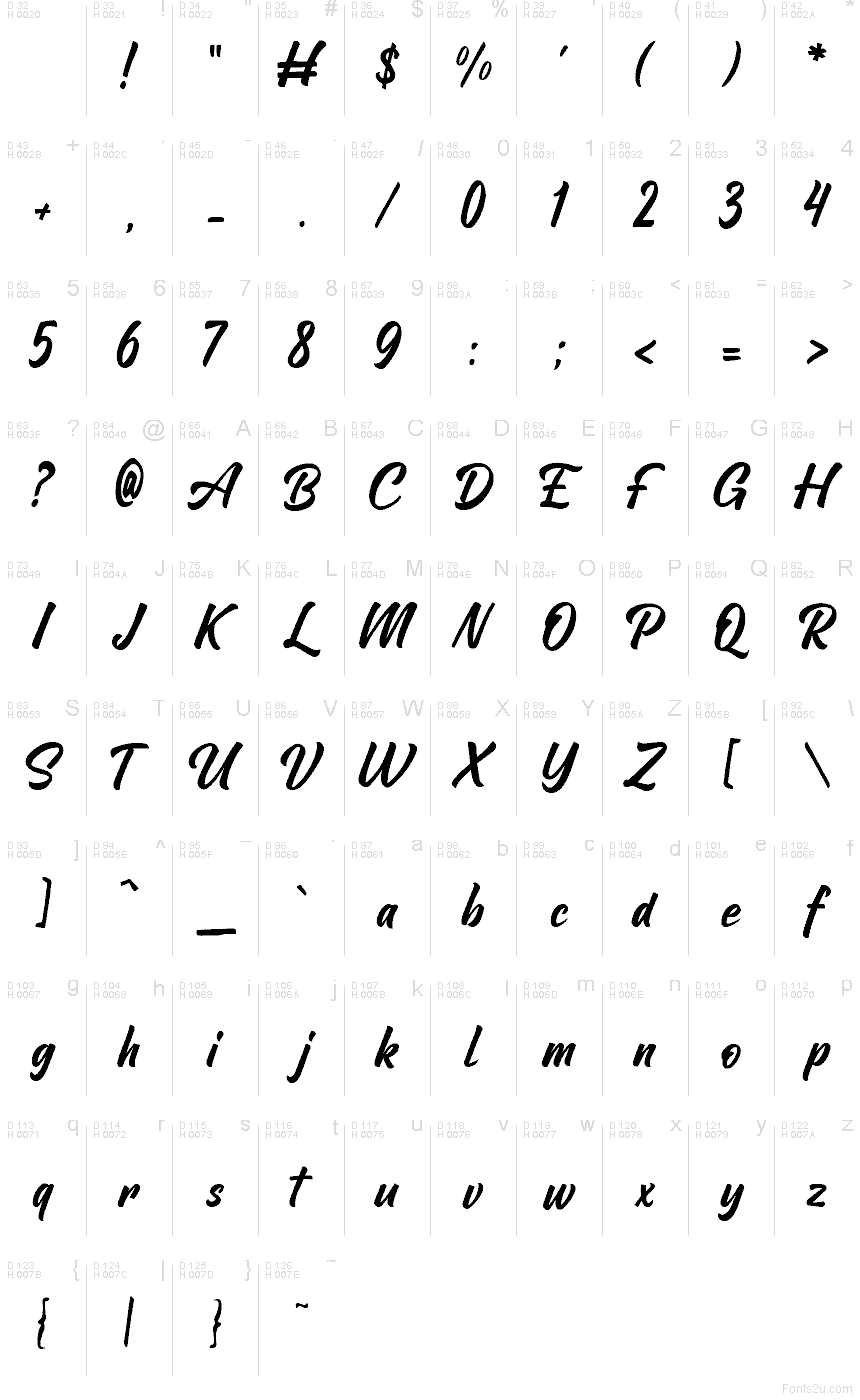
Frosted Breath
Frosted Breath font by BlackFridayFont FMF is a free brush script typeface that gives you all the energy of hand lettering without sacrificing clarity. Letters sweep forward with an easy, slanted rhythm, but the strokes stay smooth and even, so words read cleanly at a glance. It feels like bold marker ink on glossy paper—confident, slightly casual, and effortlessly polished.
Using Frosted Breath, you can add personality to logos, product packaging, quote graphics, social media posts, greeting cards, and header text without your message getting lost in flourishes. This free font shines when set a bit larger, with plenty of breathing room around it. Pair it with a simple sans serif for body copy to keep your layouts grounded and readable.